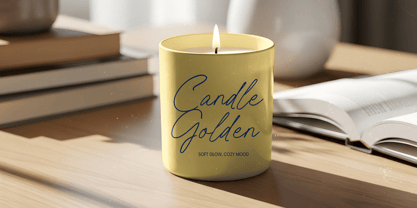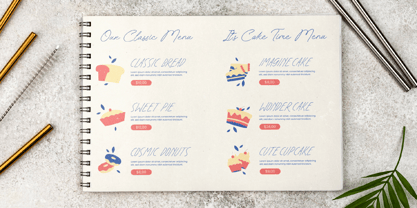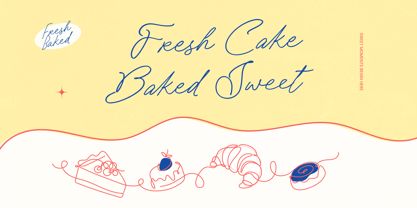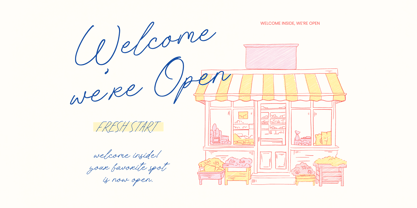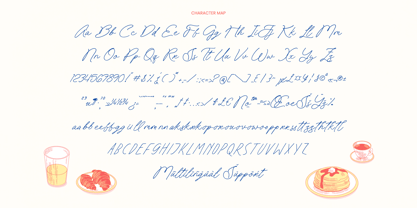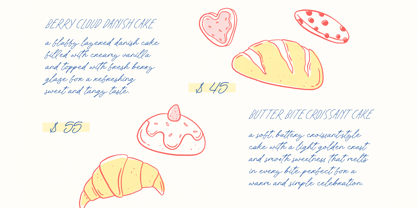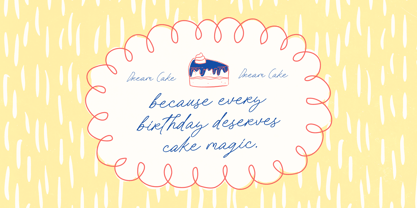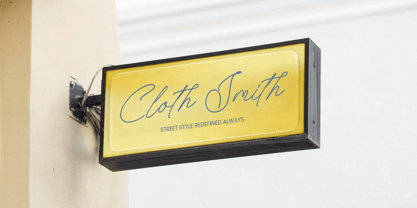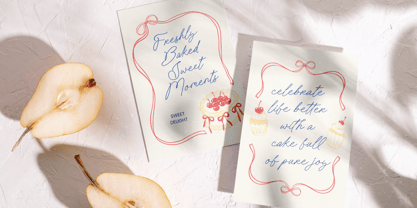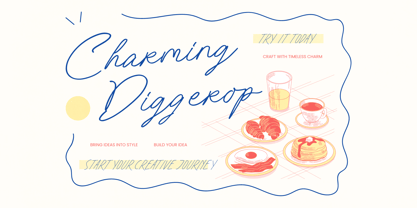
Charming Diggerop
The Charming Diggerop Font Family was designed by Heru Utama Putra and published by Stylishtype Studio. Charming Diggerop contains 2 styles and family package options. More about this family
Elevate your creative vision with a typeface that embodies effortless elegance. Charming Diggerop - Handwritten Font is a masterclass in modern script design, offering a fluid and organic aesthetic that mimics authentic penmanship. Its graceful strokes and rhythmic flow provide a personal touch that is both sophisticated and approachable, making it an essential tool for designers seeking to infuse their work with a unique, human-centric character.